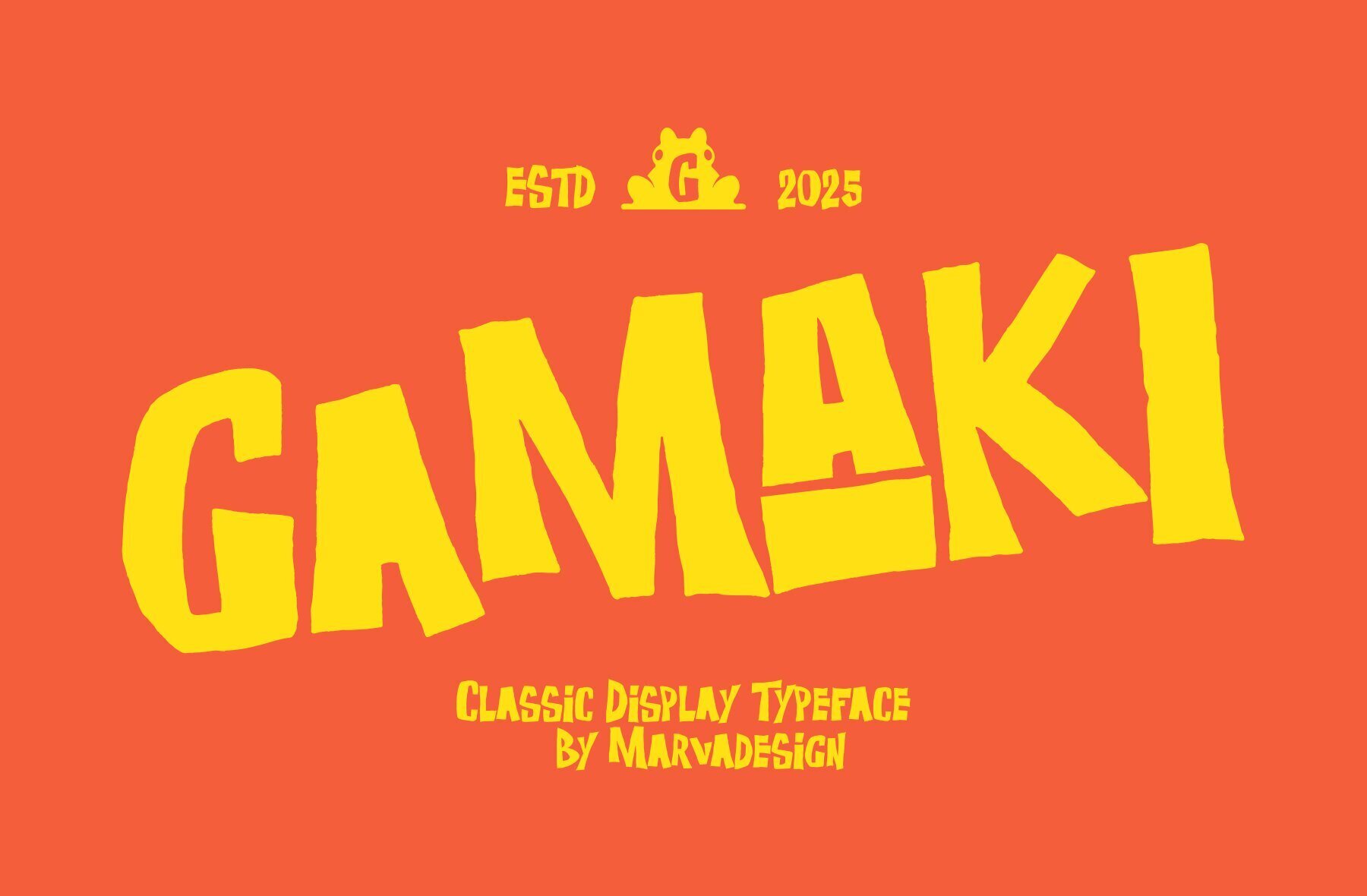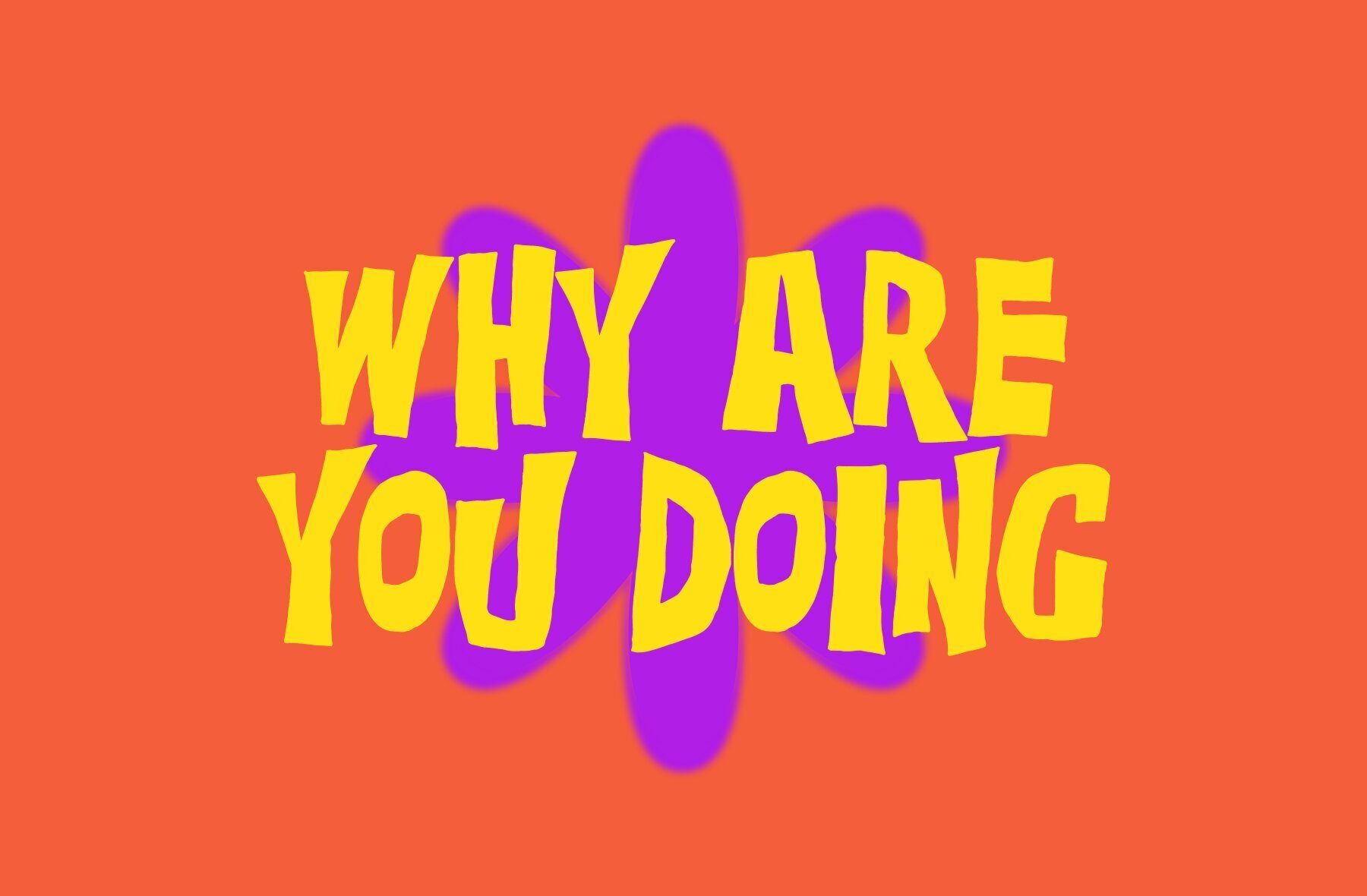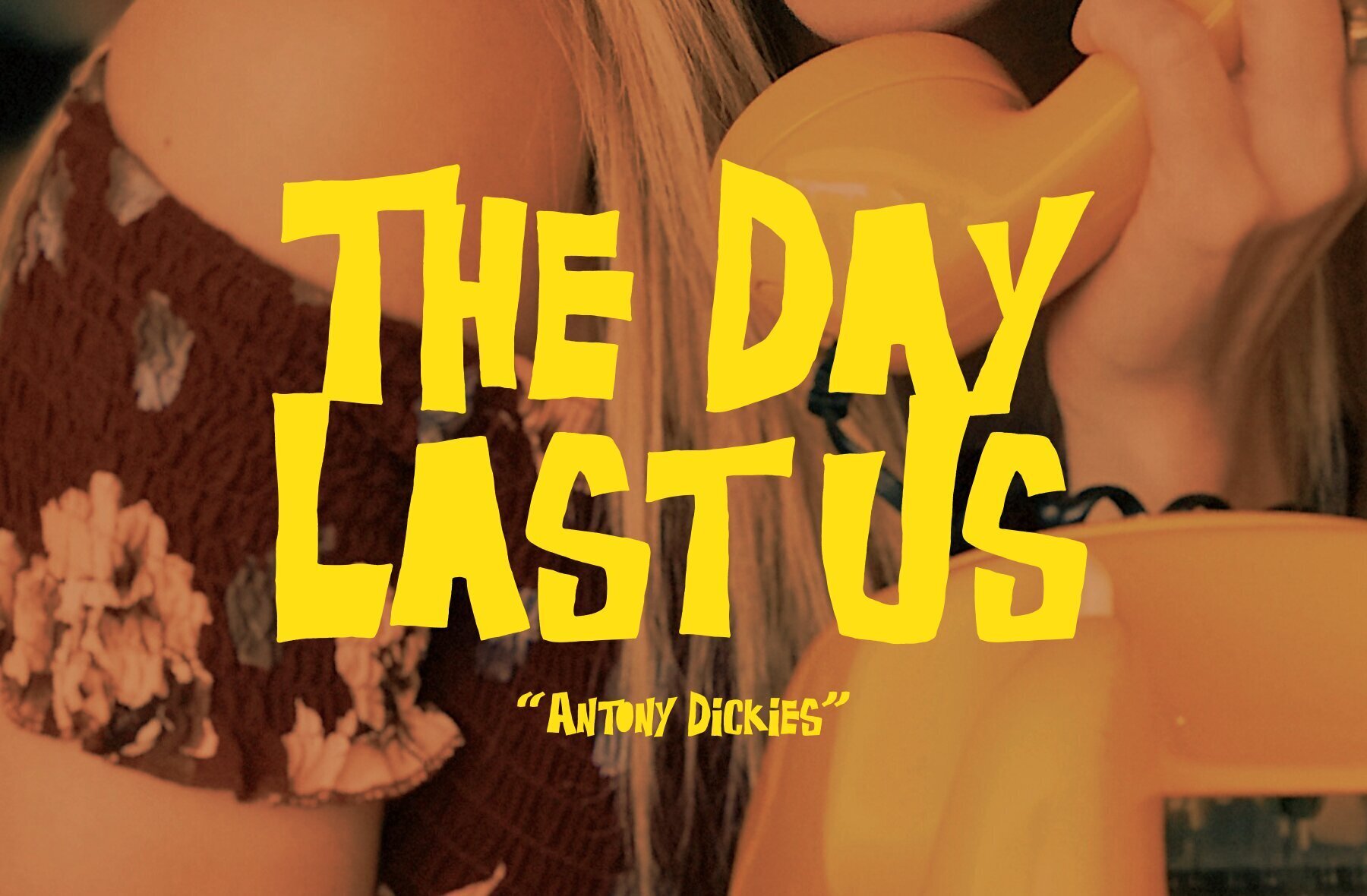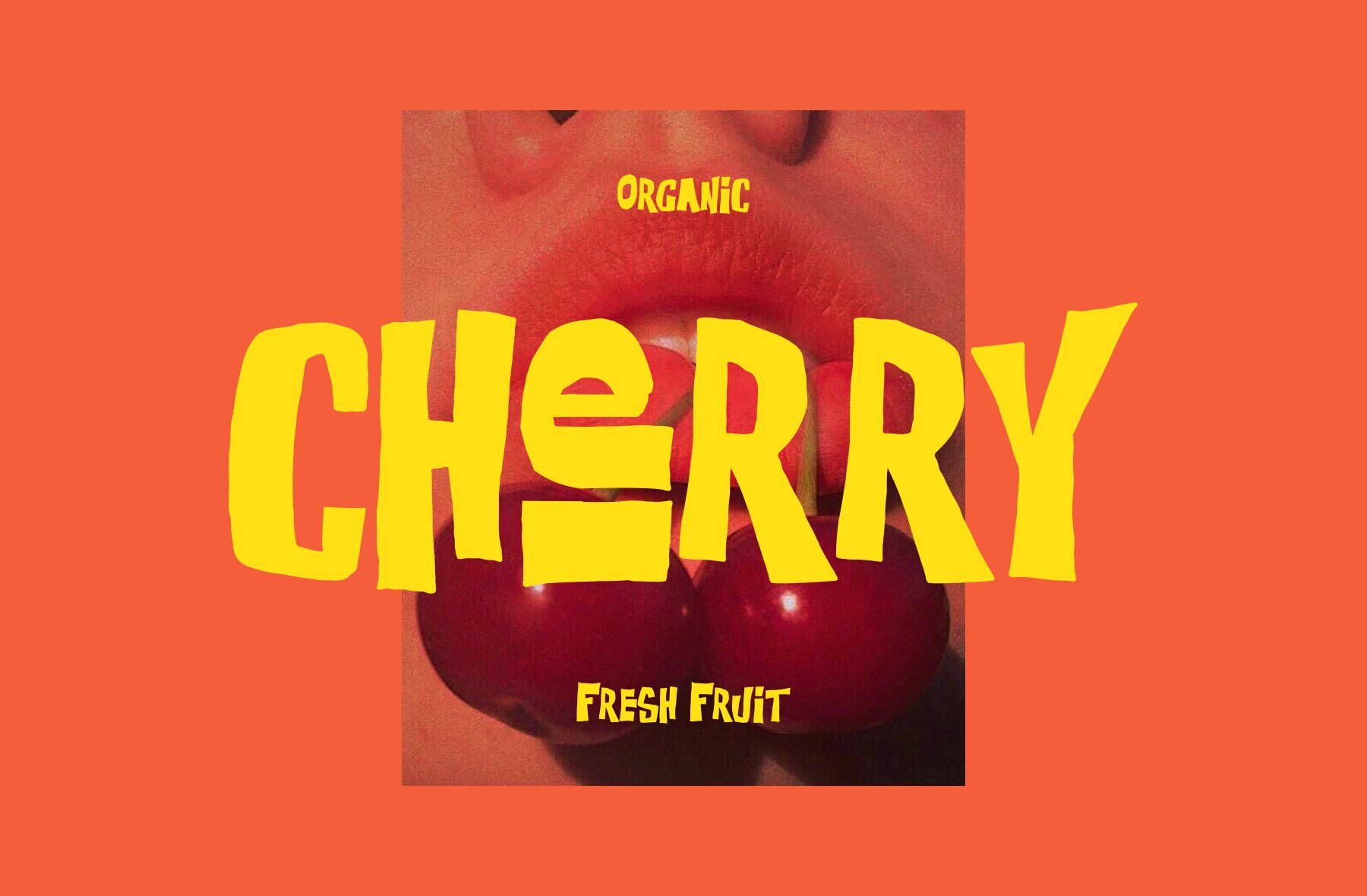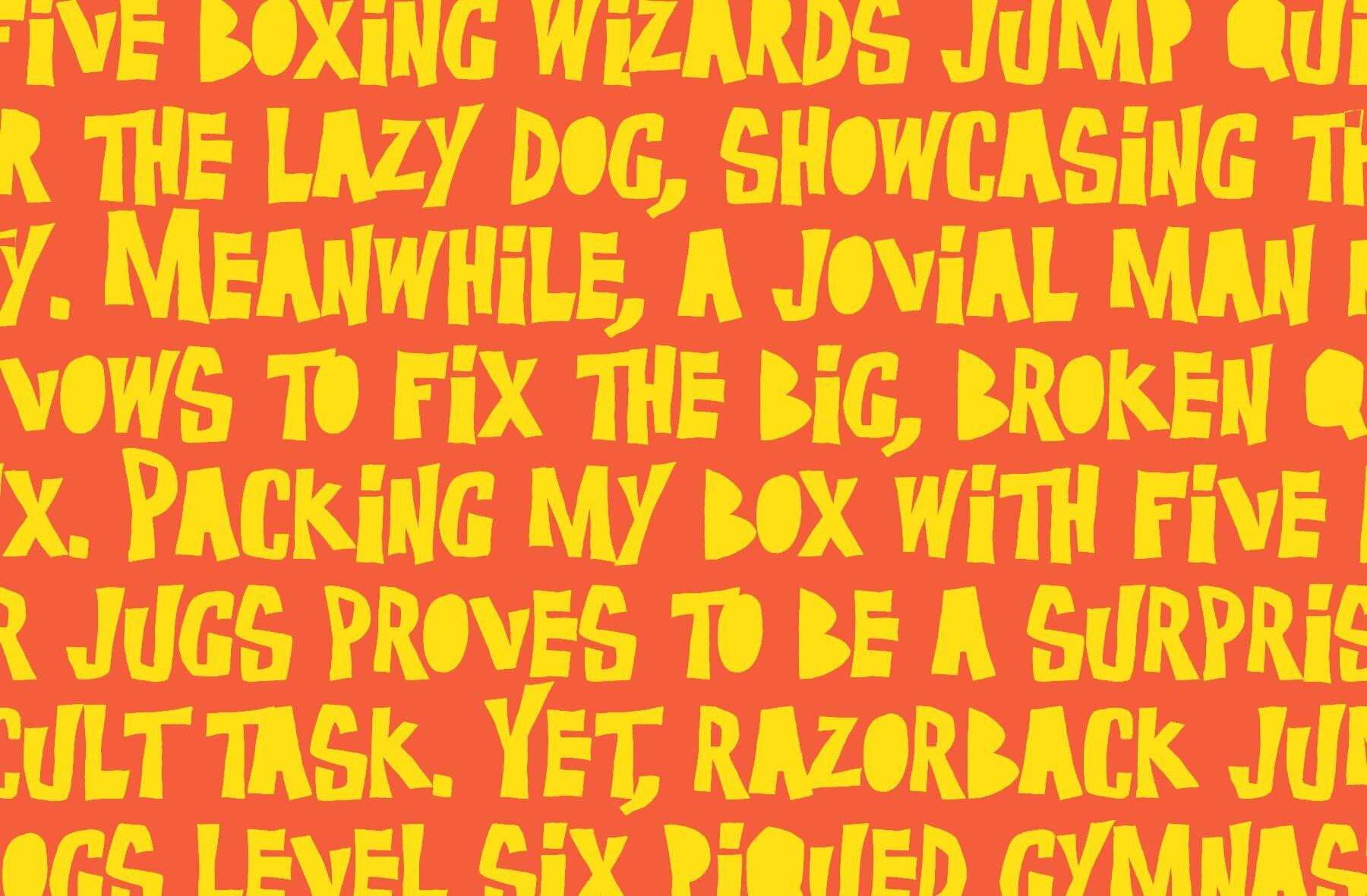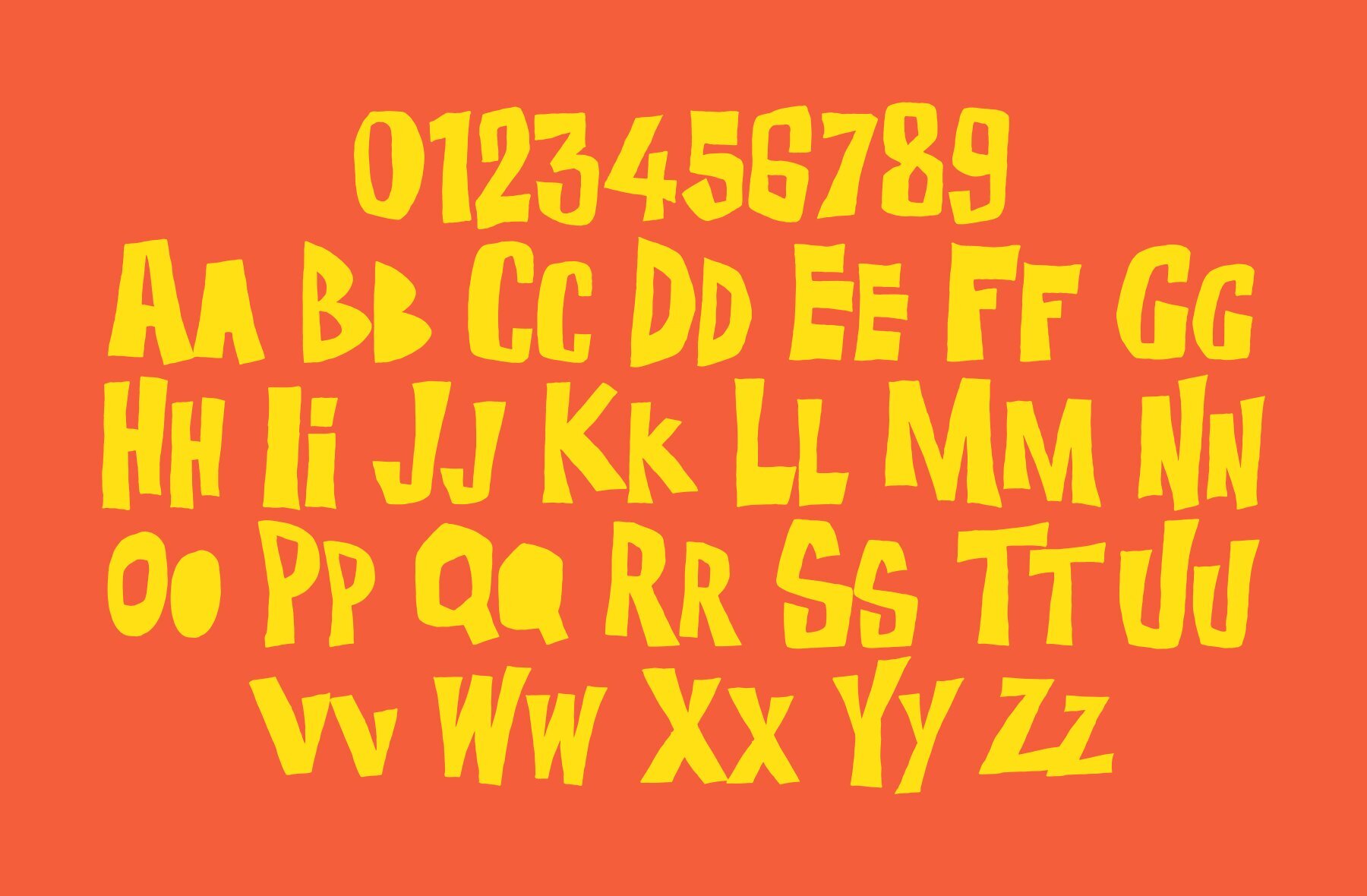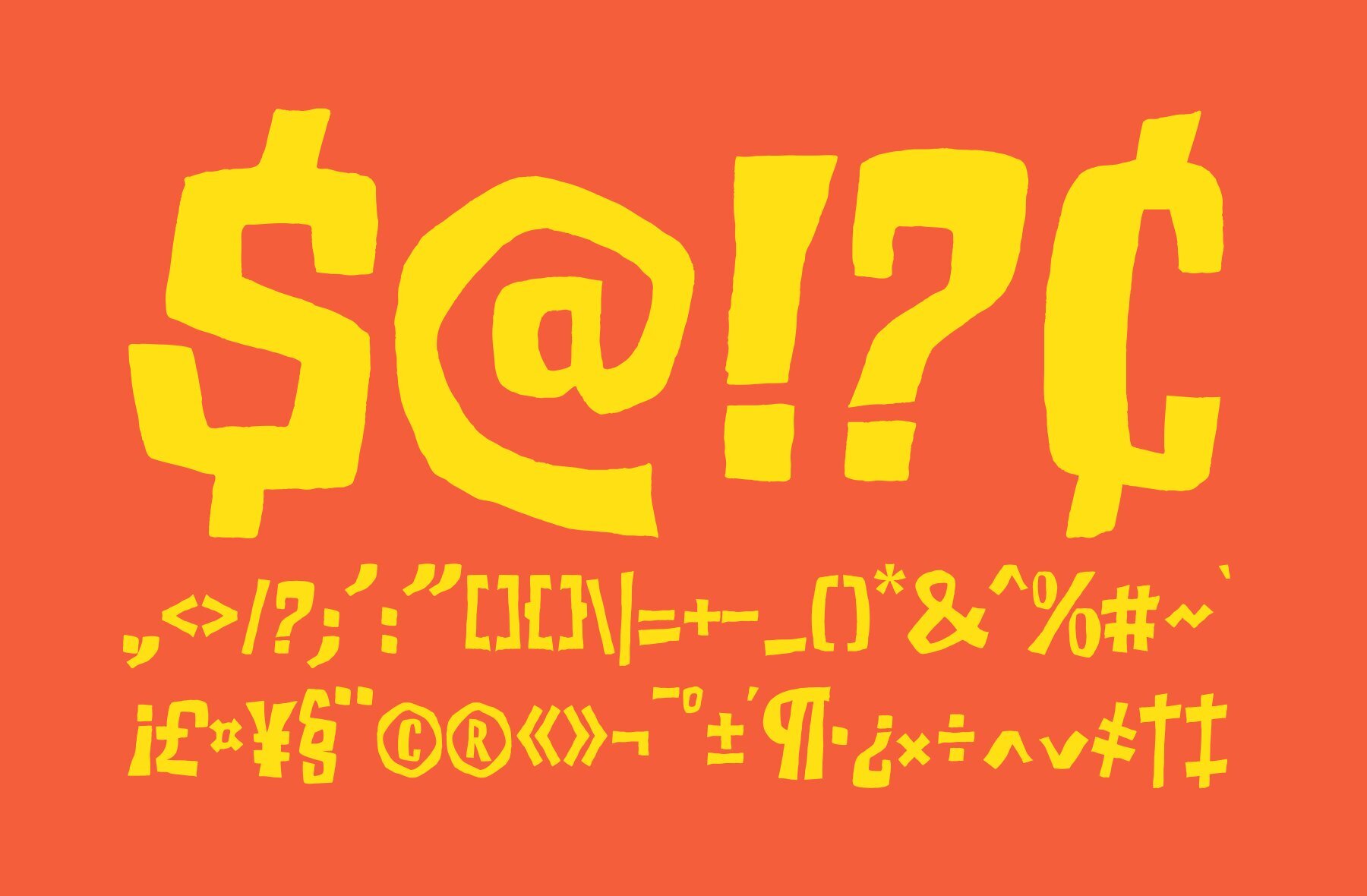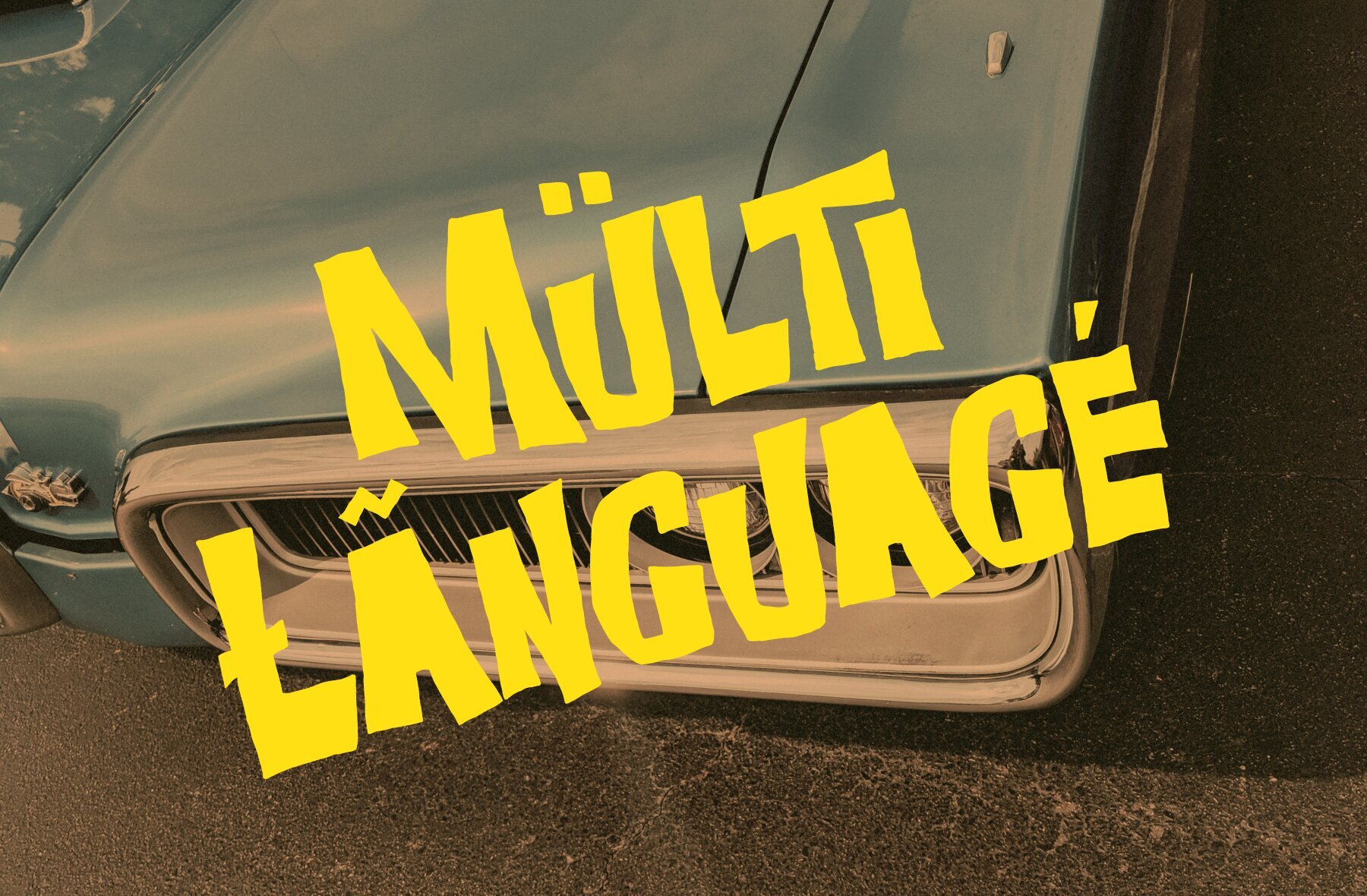
Gamaki Font
Gamaki
Gamaki is a bold and playful display typeface, featuring a hand-drawn, irregular aesthetic. Each letter boasts an organic, slightly wobbly structure, which infuses an energetic essence into your design projects. With thick strokes and an uneven baseline, this typeface becomes an ideal choice for crafting eye-catching headlines, distinctive branding, and lively posters. The font's exaggerated proportions and rough edges channel a casual, inviting ambiance, reminiscent of vintage cartoon lettering or classic signage. Gamaki offers a unique opportunity to invigorate your design work with its dynamic presence and animated appearance.Gamaki: A Vibrant Display Typeface